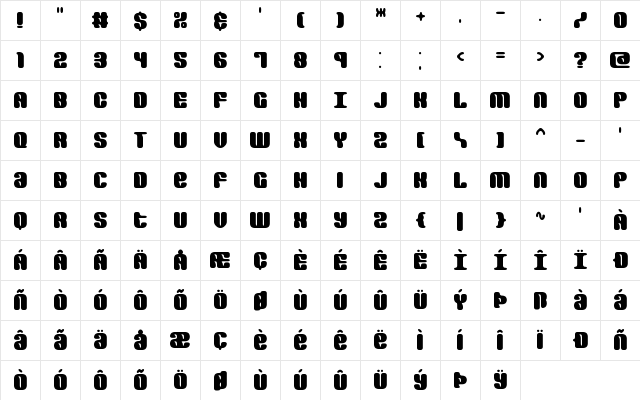
Revert Round BRK Normal
Design Context for Revert Round BRK
Revert Round BRK softens its letterforms with rounded terminals, giving it an approachable, friendly quality that works well in consumer-facing and digital contexts.
Font Pairing: Pairs well with a rounded or humanist sans for body copy, maintaining the friendly tone without relying on Revert Round BRK to carry extended reading.
Pro Tip: Use Revert Round BRK for UI elements, app interfaces, and anywhere a friendly, approachable tone needs to be maintained without sacrificing clarity.